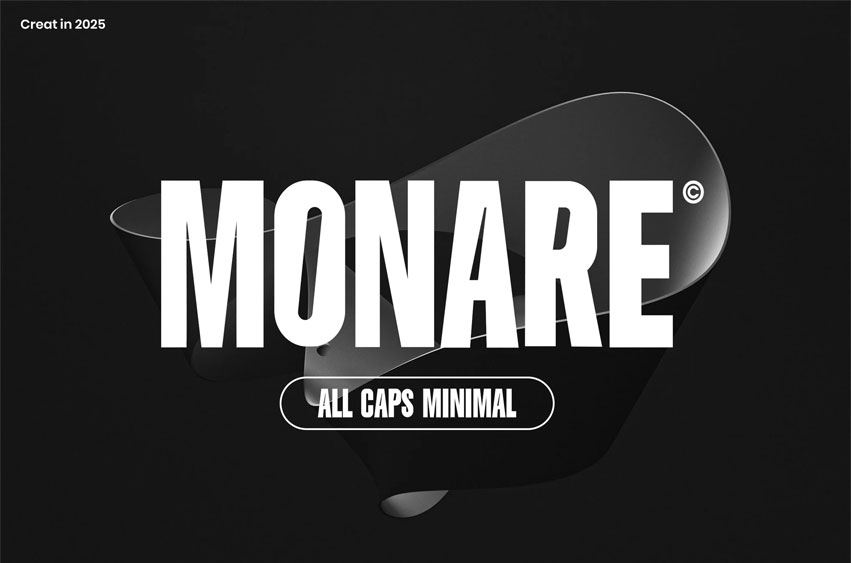
Monare Font
Monare Font Bold Modern Sans Serif is a bold, all-caps font designed for high-impact visuals and strong branding needs. With clean lines, solid shapes, and minimalist construction, Monare brings authority and clarity to your headlines, posters, logos, and packaging.
Perfect for designers looking for a confident and modern typeface that demands attention without compromising on elegance.